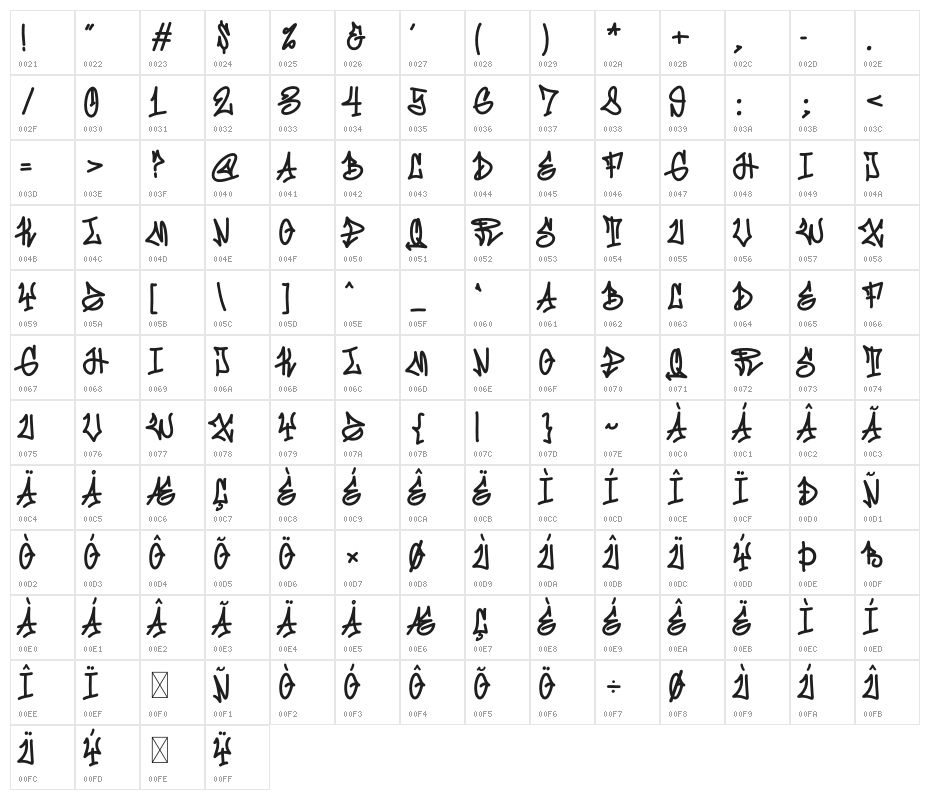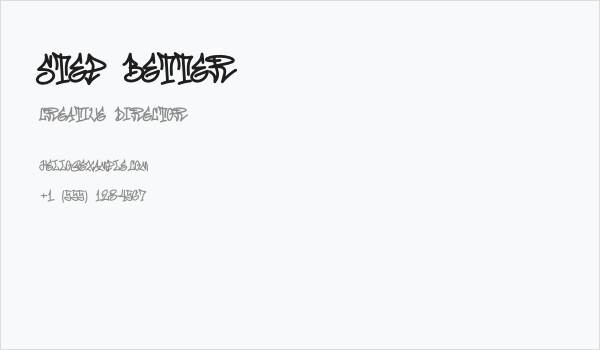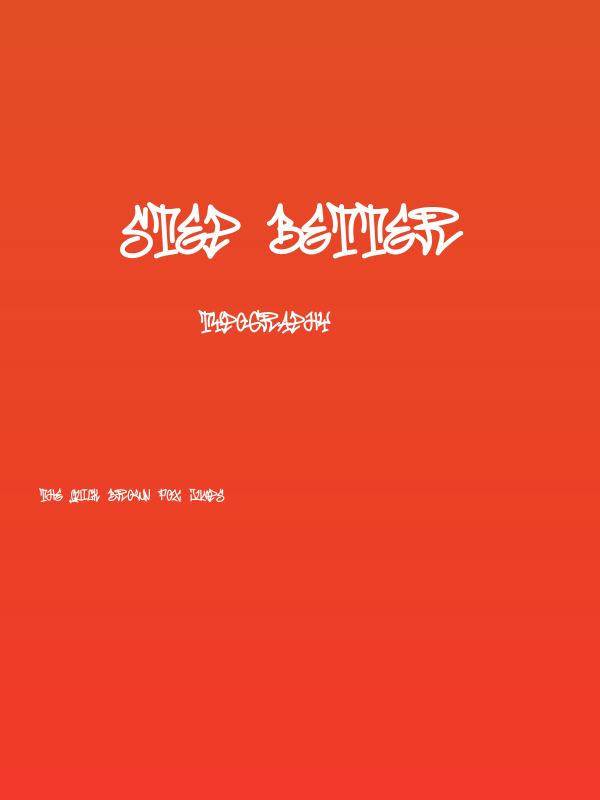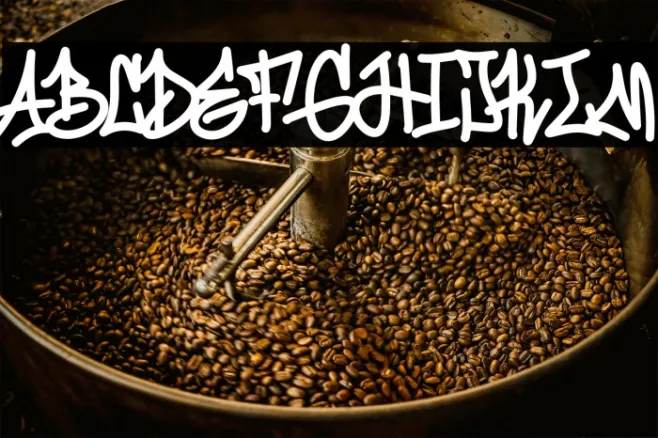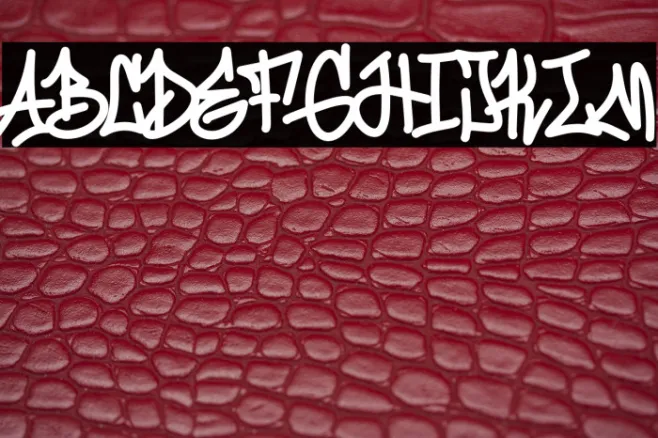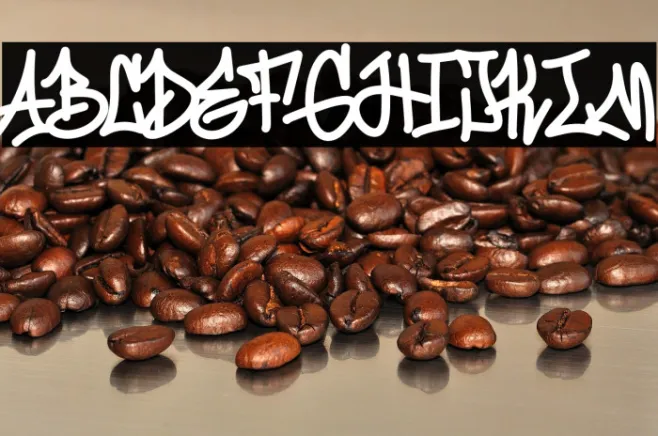
Step Better Font
Step Better Description
This font exhibits a bold, graffiti-inspired style with a dynamic and energetic appearance. The characters are interconnected with fluid strokes, creating a sense of movement and rhythm. The uppercase and lowercase letters share a consistent design, emphasizing a street art aesthetic. The numbers and special characters maintain the same bold and expressive style, making them stand out. This font is perfect for projects that require a strong, urban vibe, capturing the essence of street culture and artistic expression.
| Overall Style | Urban, Graffiti, Energetic |
| Proposed Projects | Ideal for street art designs, urban-themed posters, music album covers, and edgy branding projects. |